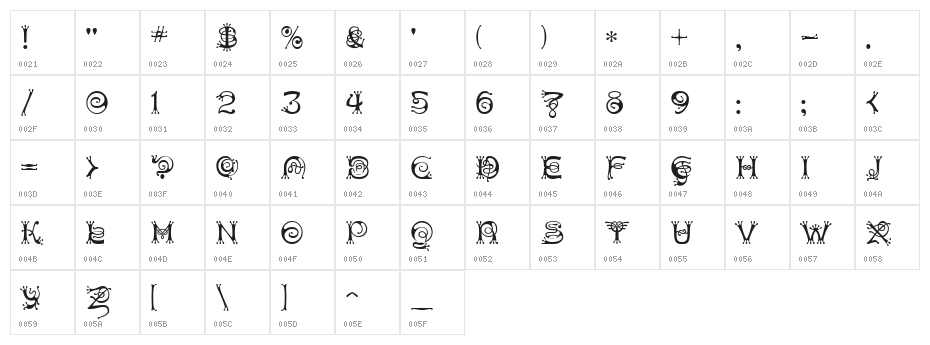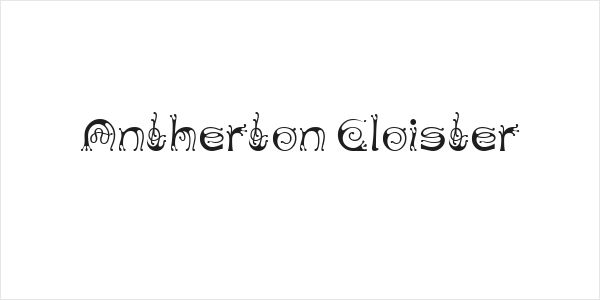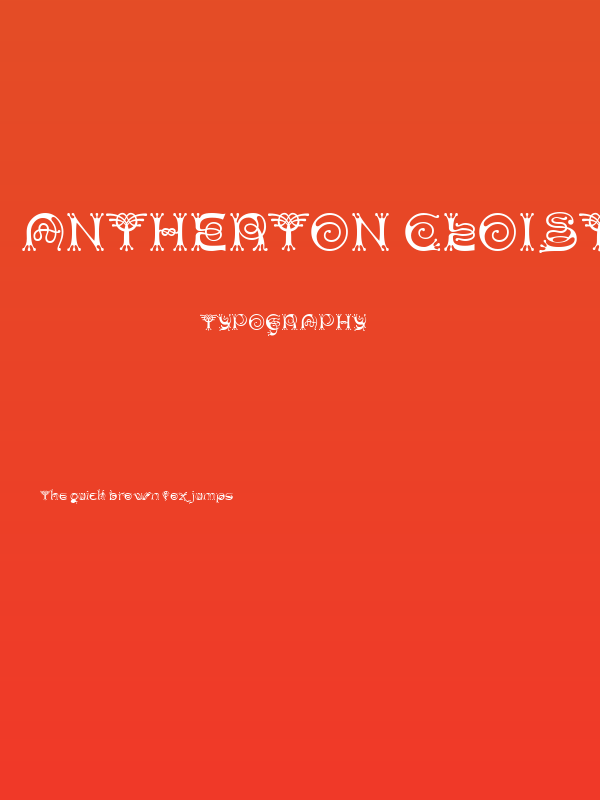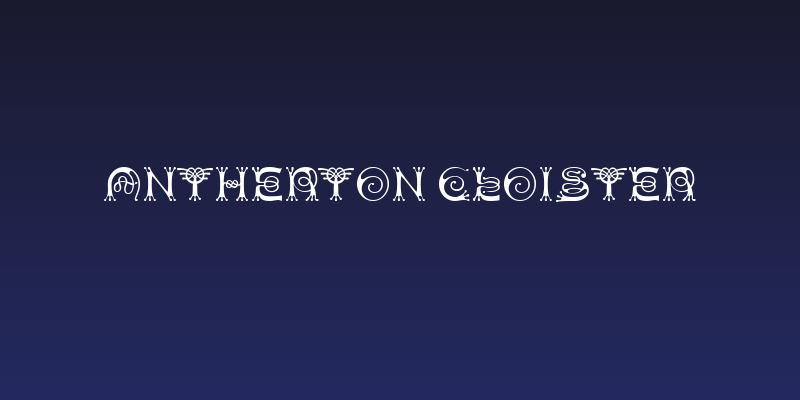
Antherton Cloister Font
Antherton Cloister Description
This font is a highly decorative and whimsical typeface that features intricate, playful elements extending from each character. The letters are adorned with unique, curly embellishments that give them a lively and animated appearance. The uppercase and lowercase letters maintain a consistent style, with each character exhibiting a distinct personality through its ornate design. The numbers and special characters are equally elaborate, incorporating swirling and looping details that enhance the font's overall artistic flair. This typeface is ideal for projects that require a touch of creativity and fantasy, making it perfect for invitations, posters, and artistic branding.
| Use Case | Headlines, Artistic branding, Invitations |
| Proposed Projects | Ideal for creative projects such as invitations, posters, artistic branding, and fantasy-themed designs. |